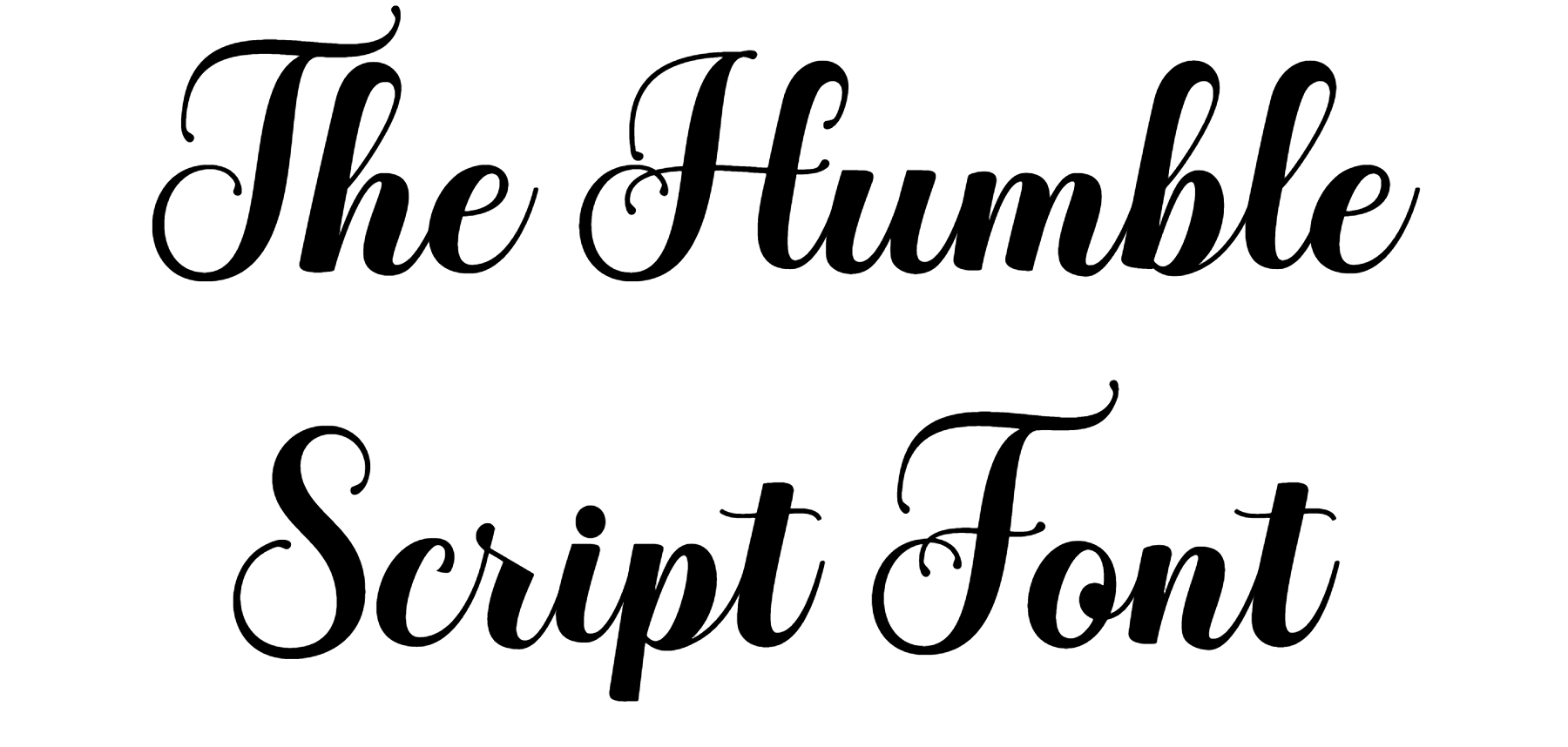
The Humble Script
The Humble Script is a calligraphy font created by RIZKI ANDIKA and released through LetterFreshStudio (2021). It has that hand-lettered, flowing feel people look for when regular type seems too stiff. It's a free download, and you can try it with your own text in the preview above first.
- Designer: RIZKI ANDIKA
- Publisher: LetterFreshStudio
- Glyphs: 183
- Languages: English, Spanish, German and Italian
What You Can Type With The Humble Script
The Humble Script covers the full alphabet in upper and lowercase, plus all ten numbers, so you can set names, dates and prices without switching fonts. Common punctuation such as &, !, ? and @ is included as well. It also has the accented letters you need for Spanish, German and Italian.
Where The Humble Script Works Best
The Humble Script is a natural fit for wedding invitations, certificates and elegant quotes. Its lowercase letters are small compared to the capitals, so set it a size or two bigger than usual. Script fonts read best in short bursts, so keep it to names, titles and one-line quotes. Skip all caps: script capitals are drawn to start a word, not to fill one.
Who designed The Humble Script font?
Does The Humble Script support accented letters?
Yes. The Humble Script includes the accented letters needed for Spanish, German and Italian, so it works for more than just English.